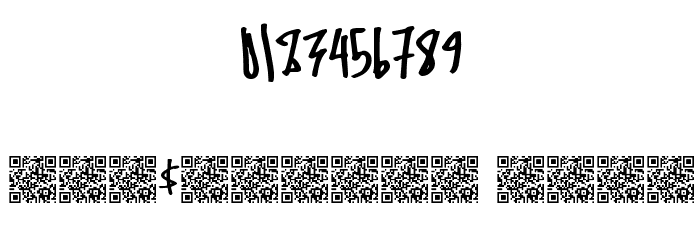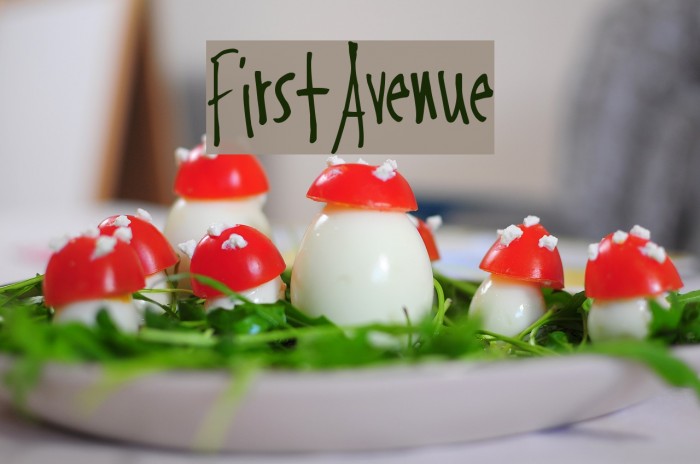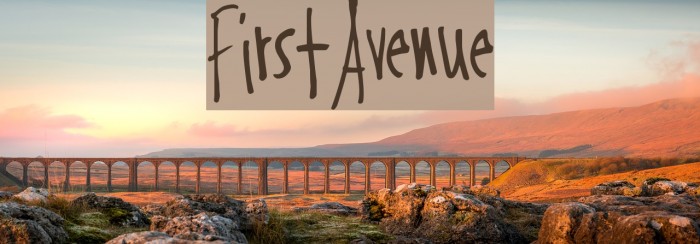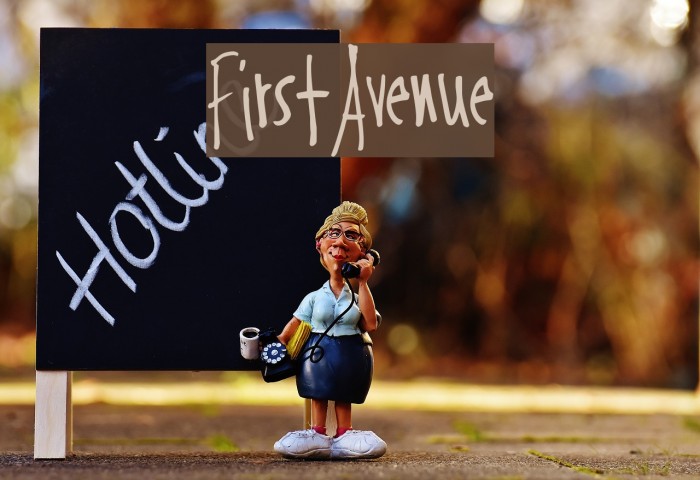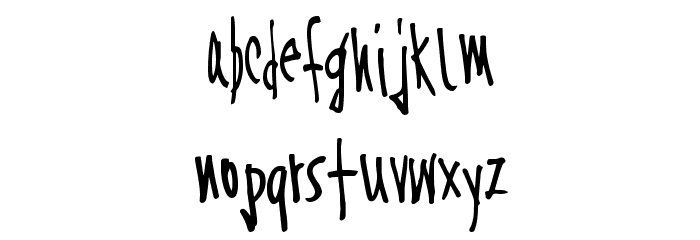
FirstAvenue Font
This font features a distinctive, hand-drawn style with irregular, elongated strokes that give it a quirky and artistic appearance. The uppercase letters are tall and narrow, with varying line thickness that adds a dynamic and energetic feel. The lowercase letters maintain a similar style, though they are more compact, creating a playful contrast. Numbers and special characters follow the same design principles, ensuring consistency throughout. The overall look is informal and expressive, making it ideal for creative projects that require a personal touch.
A quirky, hand-drawn font with irregular strokes and an artistic flair.
• Proposed Projects: Ideal for creative projects such as posters, album covers, and artistic branding that require a unique and personal touch.